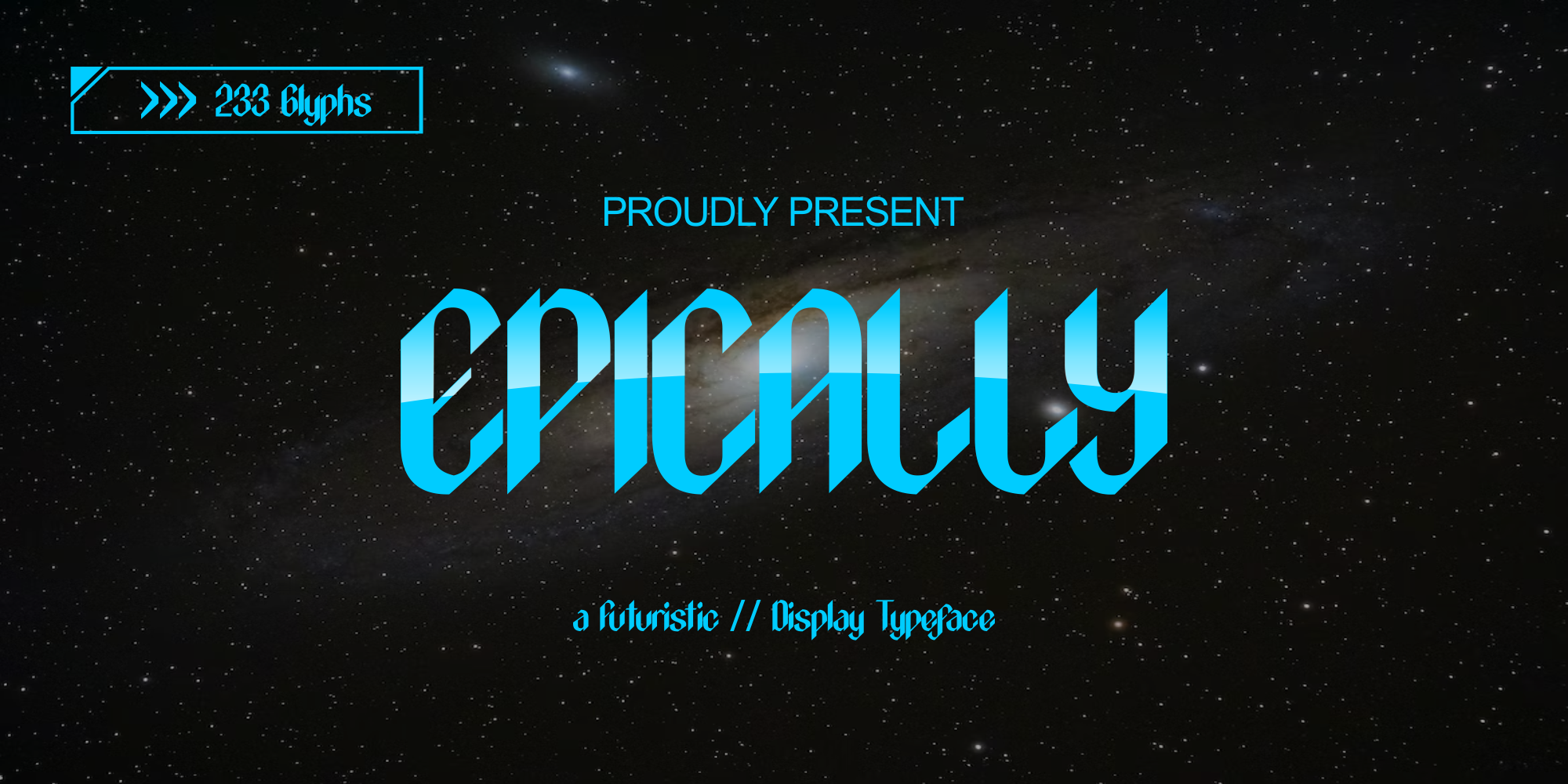
Epically Font is ideal for blockbuster movie titles, epic gaming logos, superhero comic designs, adventure book covers, action-packed poster campaigns, dramatic theater productions, heroic brand identities, legendary event promotions, monumental documentary titles, and larger-than-life marketing materials. This commanding typeface brings cinematic grandeur and legendary impact to projects requiring extraordinary visual presence and epic storytelling power.
What makes Epically Font exciting is its extraordinary ability to transform ordinary messages into legendary statements that command attention and inspire awe through monumental letterforms that seem to pulse with heroic energy. The font features bold, dramatic character construction with powerful proportions and dynamic details that evoke the scale and intensity of epic adventures and legendary tales. Its commanding presence captures the essence of greatness and achievement, making it perfect for brands and projects seeking to convey ambition, triumph, and extraordinary accomplishment that transcends the ordinary.
The Epically Font family includes multiple heroic variations such as Regular, Bold, Condensed, and Ultra styles, along with complementary Outline, Shadow, and 3D versions. Each weight maintains the font's distinctive epic character while providing comprehensive design flexibility for entertainment industry branding and large-scale promotional applications that demand maximum visual impact.
Whether you're creating entertainment industry identities, designing blockbuster marketing campaigns, or developing legendary brand experiences, Epically Font Free Download provides the monumental typography needed for truly epic visual communication. This font seamlessly combines cinematic drama with professional versatility, making it an exceptional choice for projects requiring both legendary impact and commercial appeal. Its powerfully crafted letterforms ensure outstanding performance across movie posters, gaming graphics, and promotional materials where epic typography creates unforgettable first impressions and lasting emotional connections with audiences seeking extraordinary experiences.